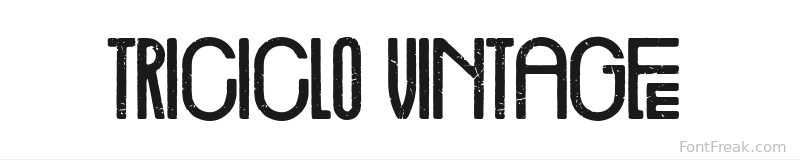
Triciclo Vintage
Triciclo Vintage, designed by woodcutter Manero, is a striking display font that captures a nostalgic essence while offering a modern twist. This decorative typeface features bold, thick strokes that convey strength and character, making it an eye-catching choice for various design projects. The font is characterized by its slightly uneven edges, providing a handcrafted, vintage feel that enhances its charm. The spacing between characters is meticulously balanced, allowing for readability while maintaining an artistic flair. The overall aesthetic is reminiscent of old signage and retro branding, making it perfect for designs that seek to evoke a sense of history.
This versatile font is ideal for a variety of specific use cases. For instance, Triciclo Vintage is perfect for wedding invitations, where its unique style can add a personal touch to the celebration. It can also elevate movie posters, providing a dramatic and engaging visual element that draws attention. Restaurant menus can benefit from its rustic appeal, enhancing the overall dining experience by reflecting a cozy, inviting atmosphere. Additionally, the font is well-suited for branding small businesses that want to convey authenticity and creativity in their marketing materials.
Targeted primarily at graphic designers, small business owners, and content creators, Triciclo Vintage offers a unique opportunity for those looking to stand out in a crowded marketplace. The font’s distinct personality and vintage charm make it an excellent choice for anyone aiming to create memorable designs.
Overall, Triciclo Vintage font free download stands out due to its ability to blend contemporary design with a nostalgic touch. Its unique characteristics and versatility make it a valuable addition to any designer's toolkit, ensuring that projects will not only be visually appealing but also rich in character and style.